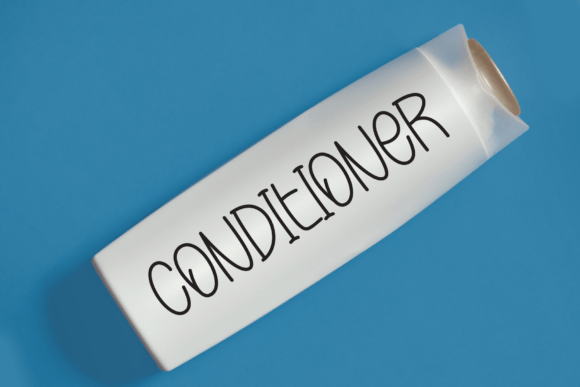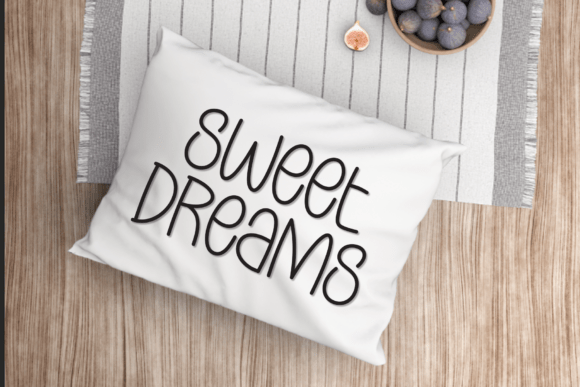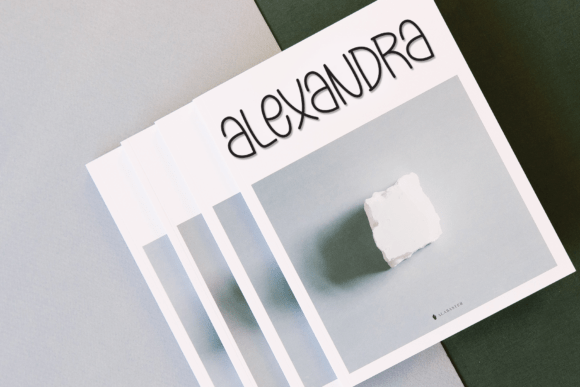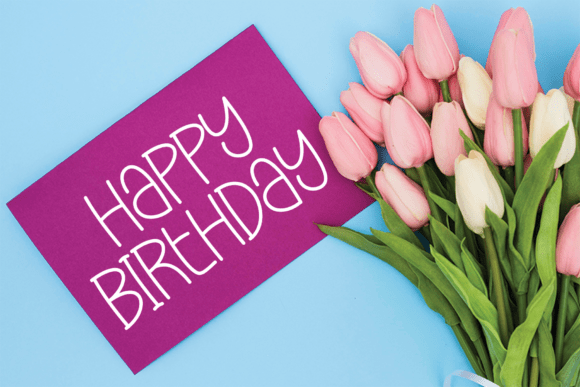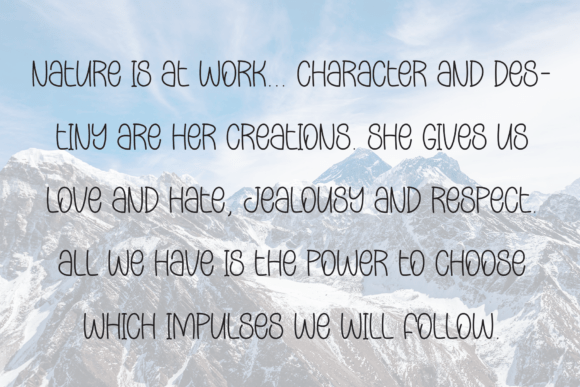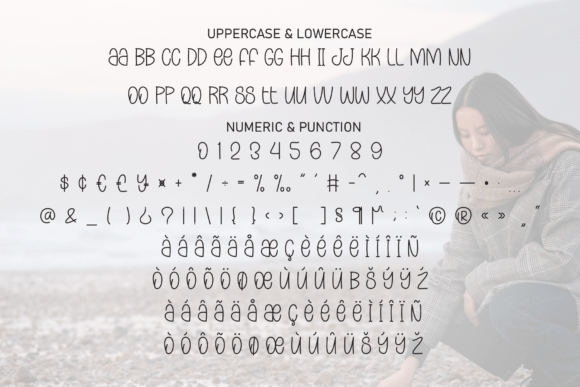
Introduction to Sad Vibes Font
Meet our charming handwritten font, embodying sweetness and a friendly demeanor.
With a delightful playfulness skimmed across every character, this standout design element elevates stationeries like wedding invitations or greeting cards with its whimsical touch Immerse your creative projects in a world bursting with fun, injecting an irresistible light-hearted charm seamlessly achieved through this exclusive font.
Key Features of Sad Vibes Font
Why Choose Sad Vibes Font?
Sad Vibes Font offers exceptional quality and versatility, making it a valuable addition to your design toolkit. Whether you’re creating for personal projects or commercial use, Sad Vibes Font delivers professional results.